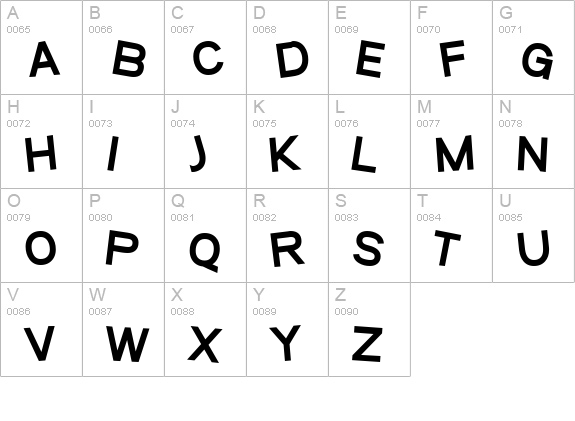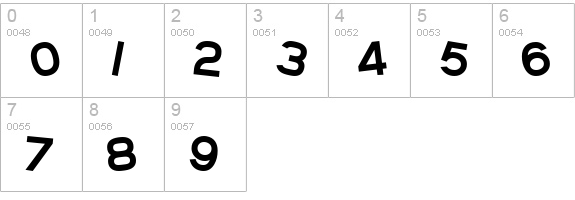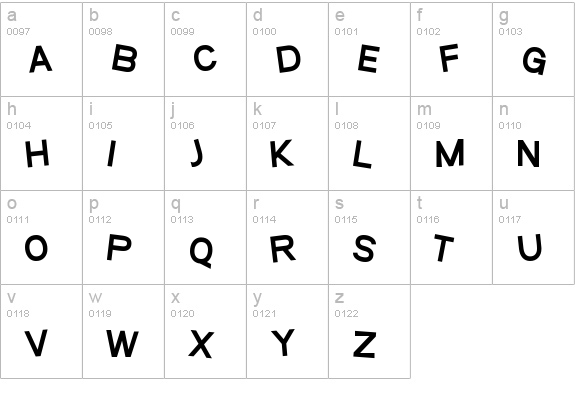
SF Beaverton SC Heavy Font Details
SF Beaverton SC Heavy is a heavy, high-impact variant in the SF typeface family \xE2\x80\x94 well suited to high-impact headlines, posters, and display advertising.
SF Beaverton SC Heavy is a striking and powerful font that exudes confidence and strength. With its bold and robust letterforms, this typeface commands attention and makes a bold statement. The heavy weight of the font adds an extra level of impact and intensity, making it perfect for headlines, titles, and other attention-grabbing designs. What makes SF Beaverton SC Heavy even more appealing is that it is available for free. Yes, you read that right! This amazing font can be freely downloaded at FontsMarket.com. Whether you are a professional designer or simply someone looking to add a touch of style to your personal projects, SF Beaverton SC Heavy is an excellent choice. With its clean lines and well-defined characters, SF Beaverton SC Heavy is incredibly versatile. It can be used in a variety of design applications, from logos and branding to posters, flyers, and social media graphics. The boldness of the font ensures that your message will be conveyed with impact and clarity. The attention to detail in SF Beaverton SC Heavy is evident in every curve and stroke. Each letter has been meticulously designed to ensure a harmonious and visually pleasing aesthetic. The result is a font that stands out from the crowd and adds a touch of sophistication to any project. Whether you're designing for print or digital media, SF Beaverton SC Heavy is ready to elevate your work to the next level. Its bold and imposing presence will make sure your message is heard loud and clear. So why wait? Take advantage of this amazing opportunity to download SF Beaverton SC Heavy for free at FontsMarket.com and unleash your creativity today.